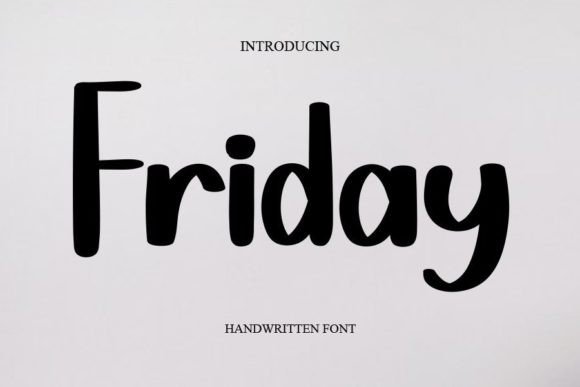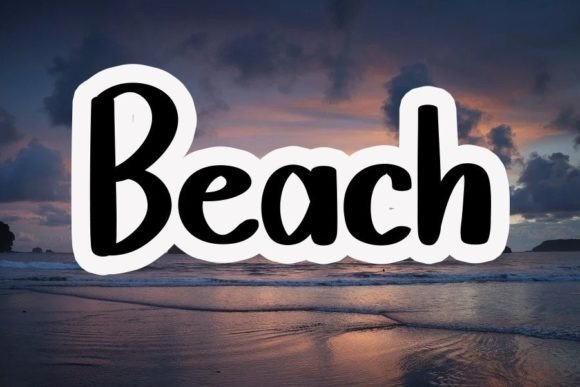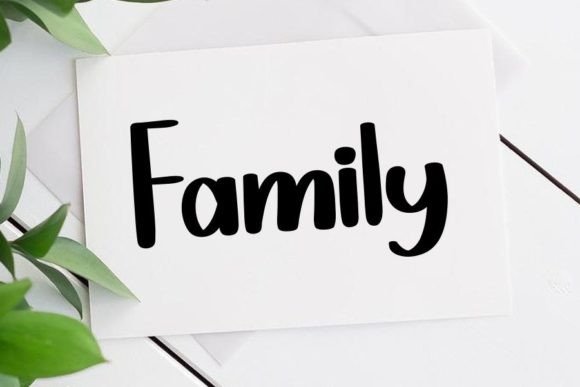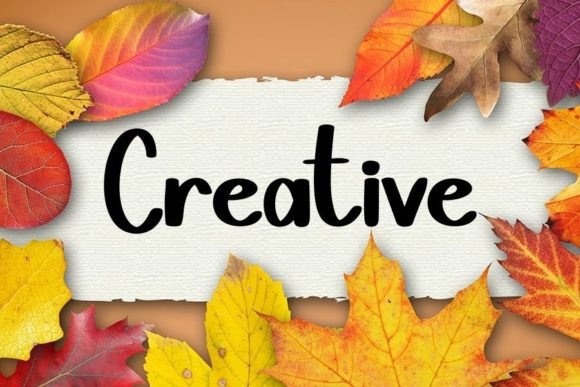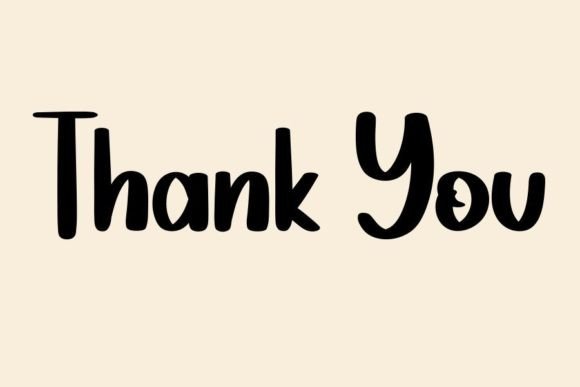
Friday Font
About Friday Font
“Friday” is a cute and friendly script font that adds a delightful touch to a variety of design projects. With its charming and approachable style, this font looks stunning on wedding invitations, thank you cards, quotes, greeting cards, logos, business cards, and any other design that benefits from a handwritten touch.
The cute and friendly qualities of “Friday” make it particularly well-suited for projects that seek a warm and inviting aesthetic. Imagine using this font on a wedding invitation, where its playful script contributes to the joyful and celebratory atmosphere of the event. Picture it on a thank you card, adding a personal and friendly touch to your expressions of gratitude.
The versatility of “Friday” allows it to adapt seamlessly to different design contexts, making it a valuable asset for a range of creative projects. Its handwritten charm brings a sense of authenticity and approachability to your designs, making them memorable and engaging.
As you incorporate “Friday” into your design projects, let its cute and friendly script be the element that infuses a lighthearted and welcoming vibe. Whether you’re working on invitations, branding materials, or any other design that requires a handwritten touch, “Friday” invites you to add a delightful and friendly flair to your creations.